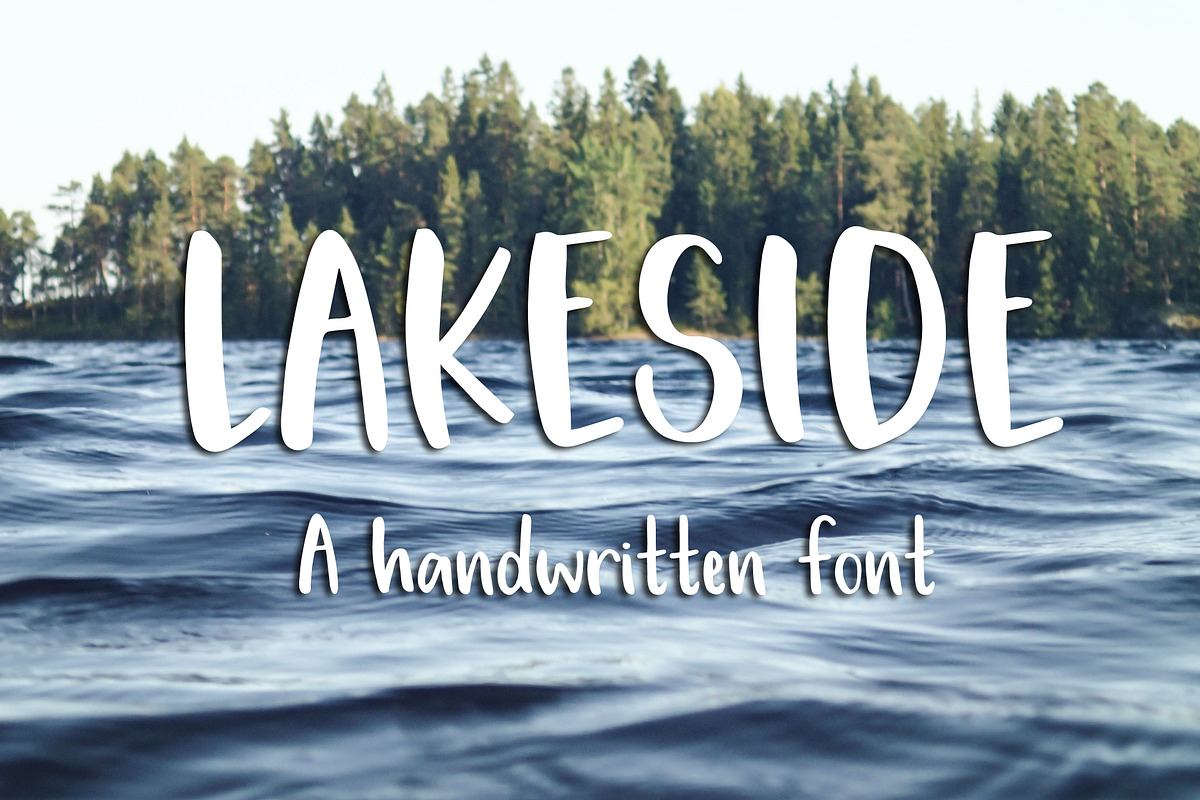
Lakeside Font Free Download
The Lakeside Font Free Download is a beautifully crafted typeface inspired by nature, serenity, and outdoor living. With its gentle curves and handwritten feel, Lakeside is perfect for rustic branding, camping-themed designs, adventure blogs, wedding invites, and cozy lifestyle projects that call for a natural and heartfelt touch.
This font blends charm with legibility, making it ideal for both headlines and body text. It comes with a full character set, stylistic alternates, ligatures, and multilingual support—giving you the freedom to personalize and refine your designs effortlessly. Whether you're designing for print or digital, Lakeside brings a peaceful, handcrafted vibe to every creation.